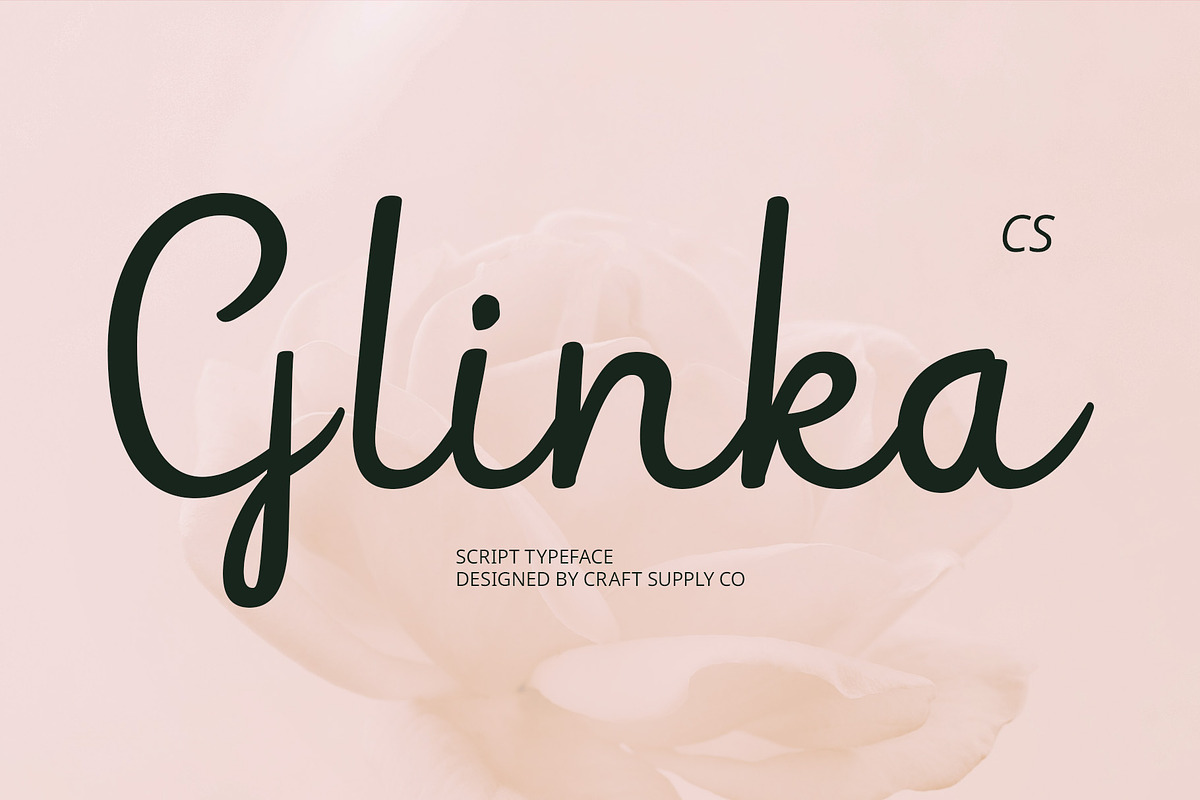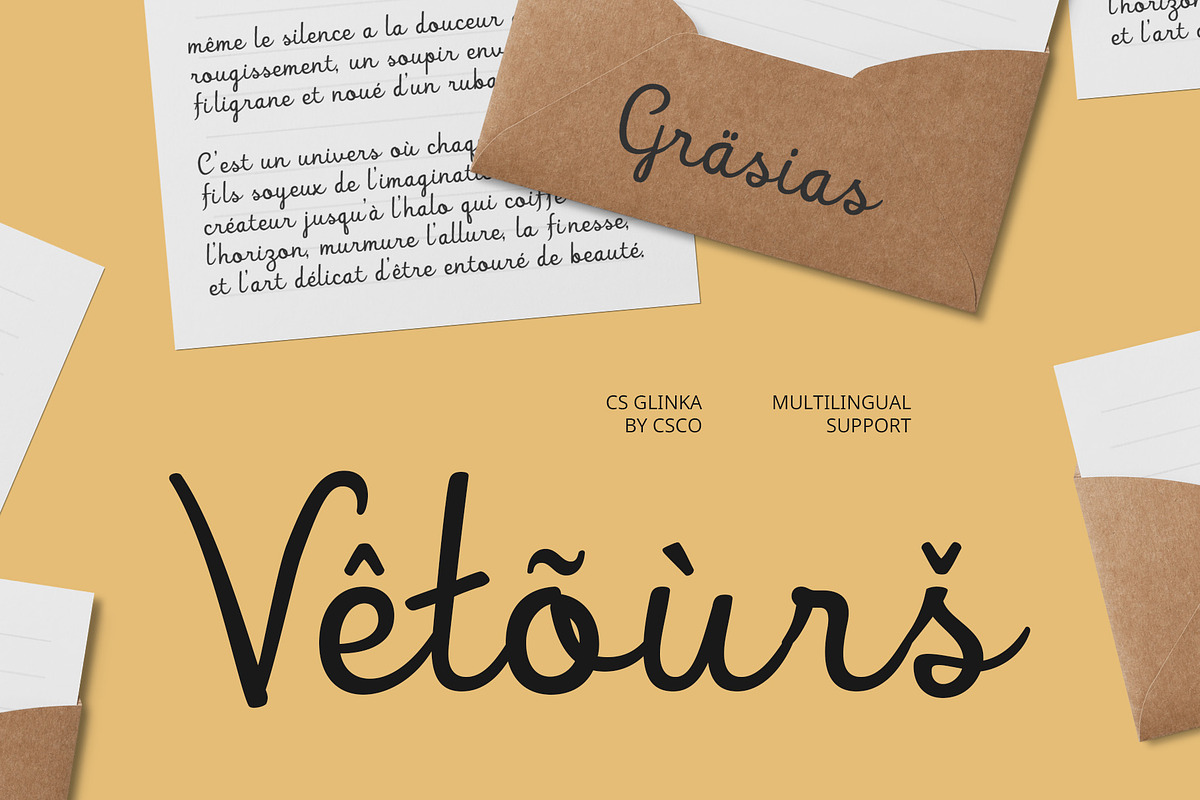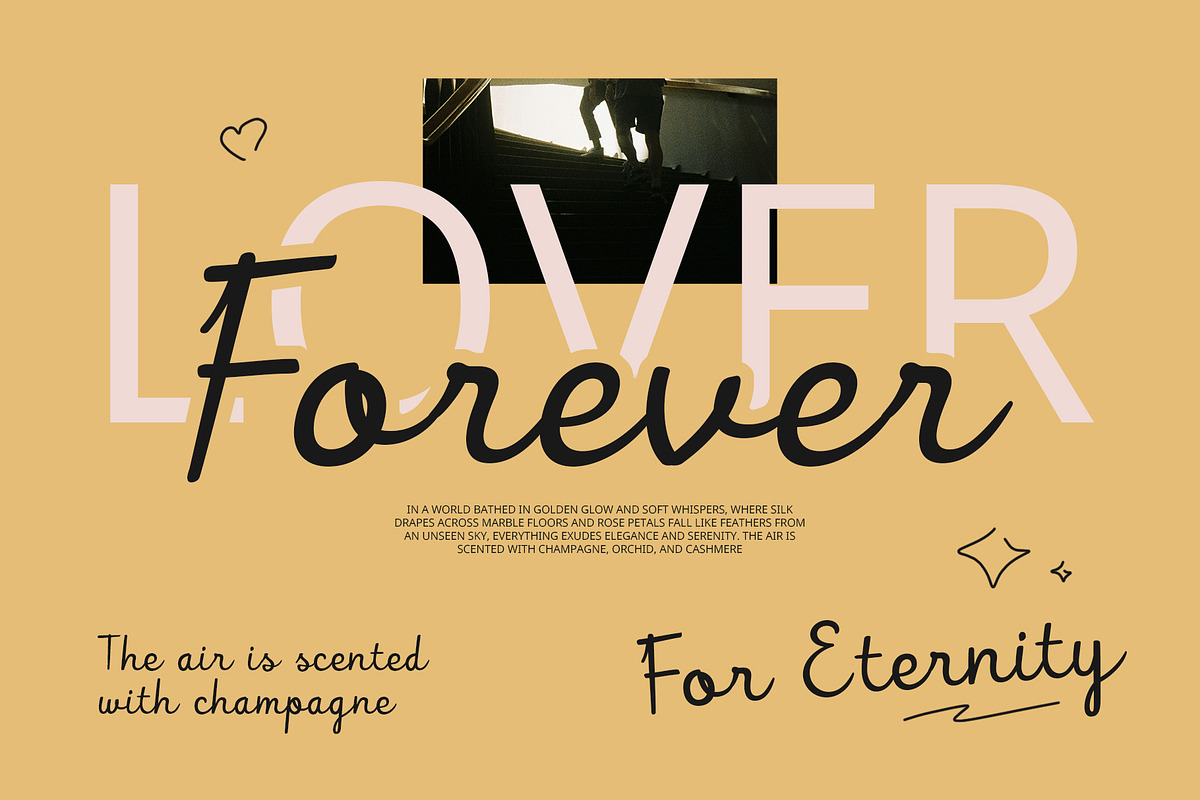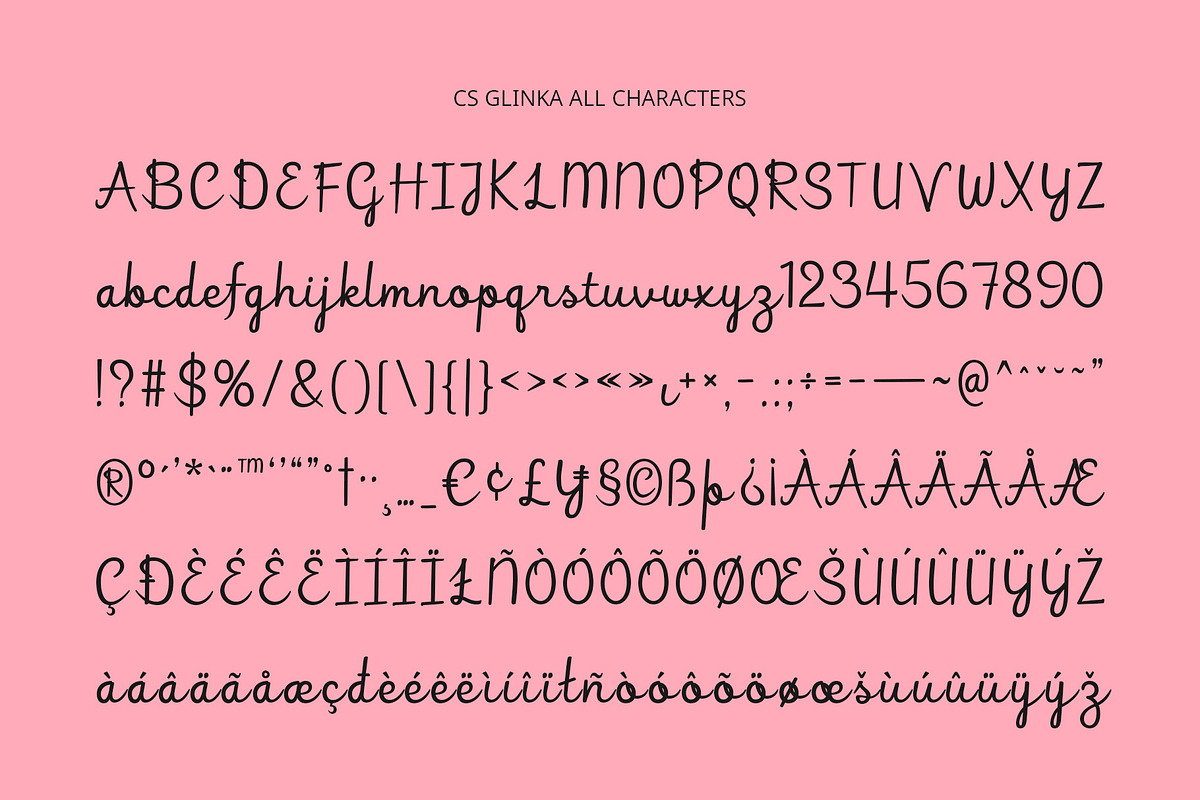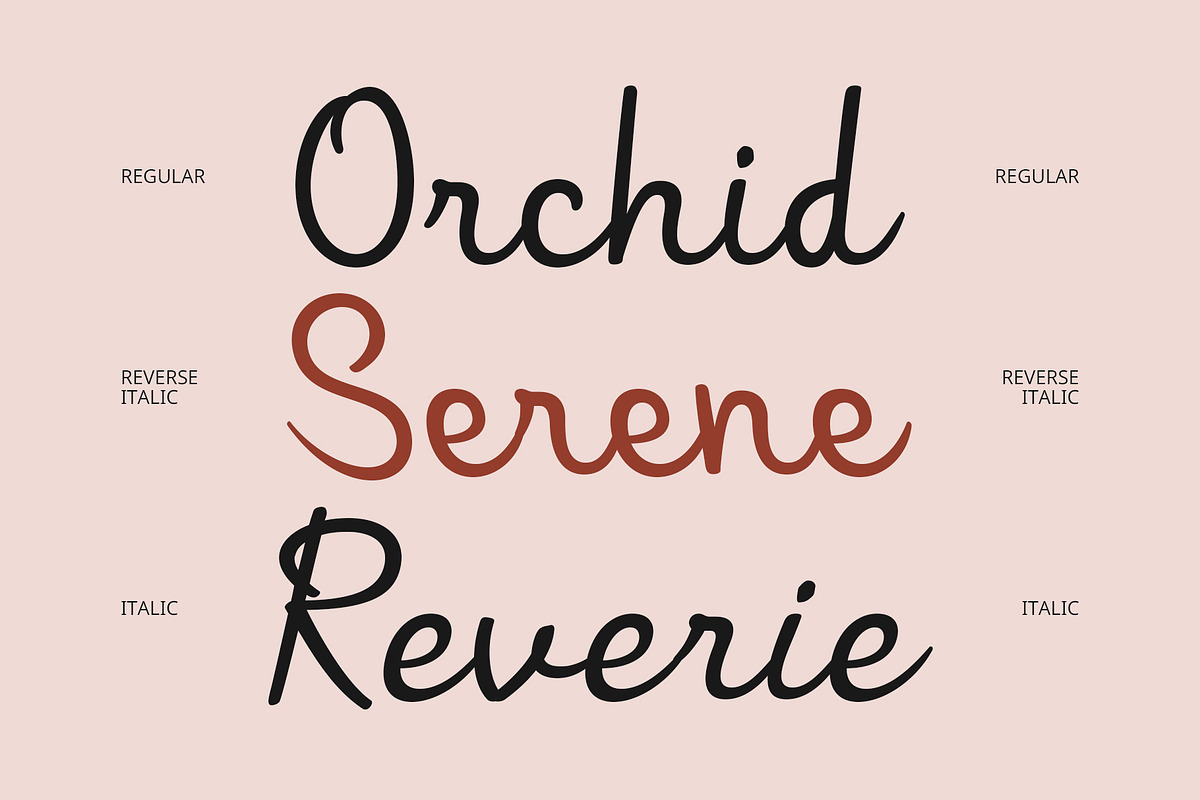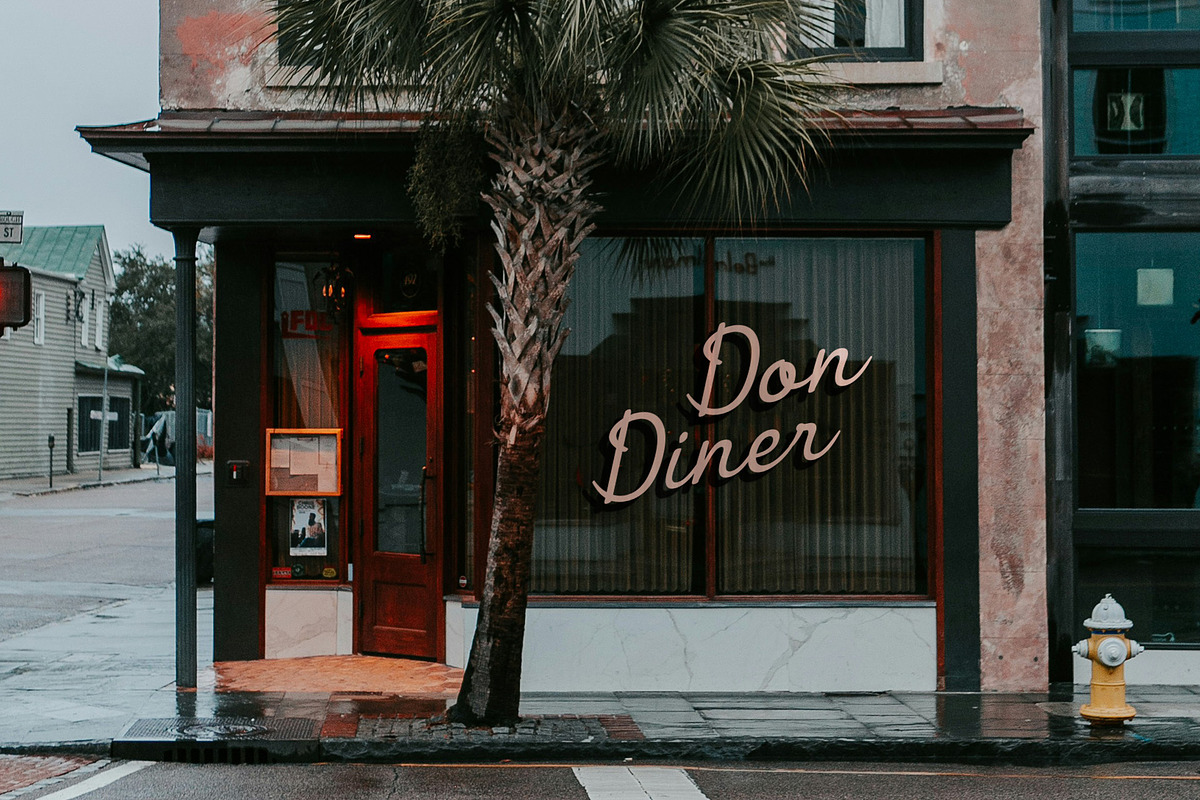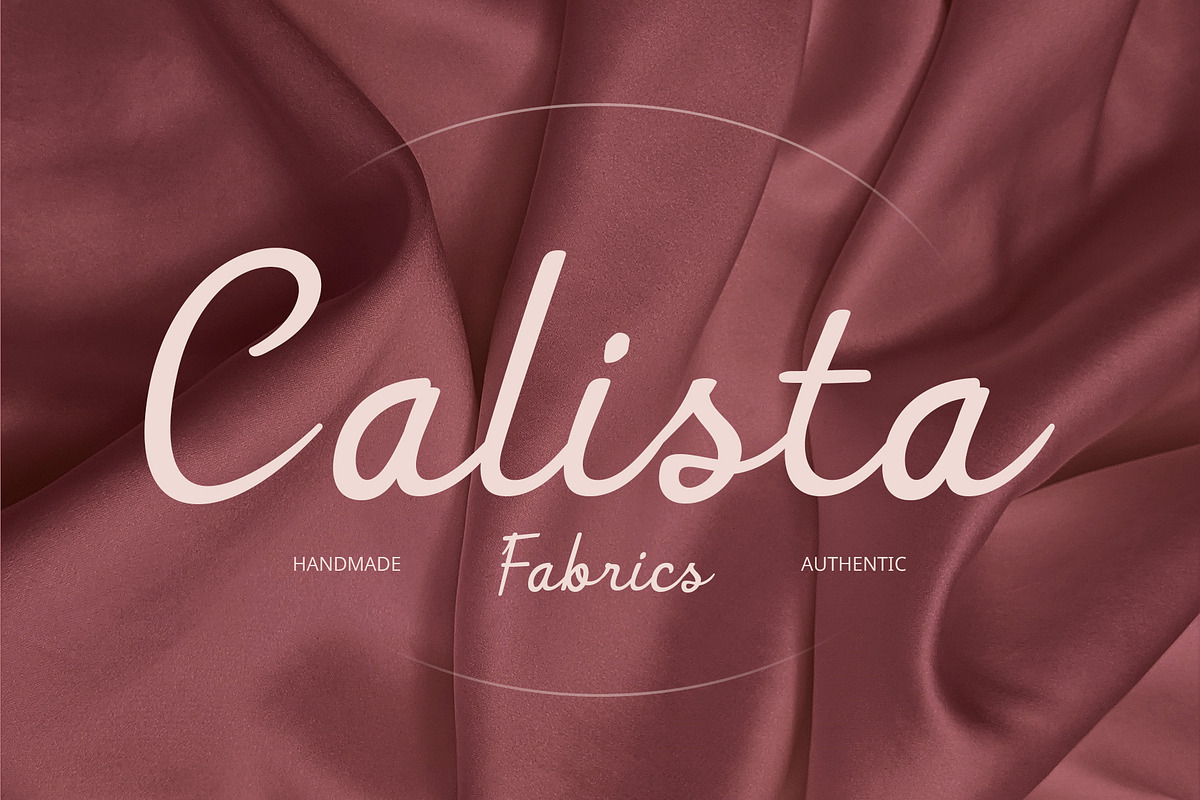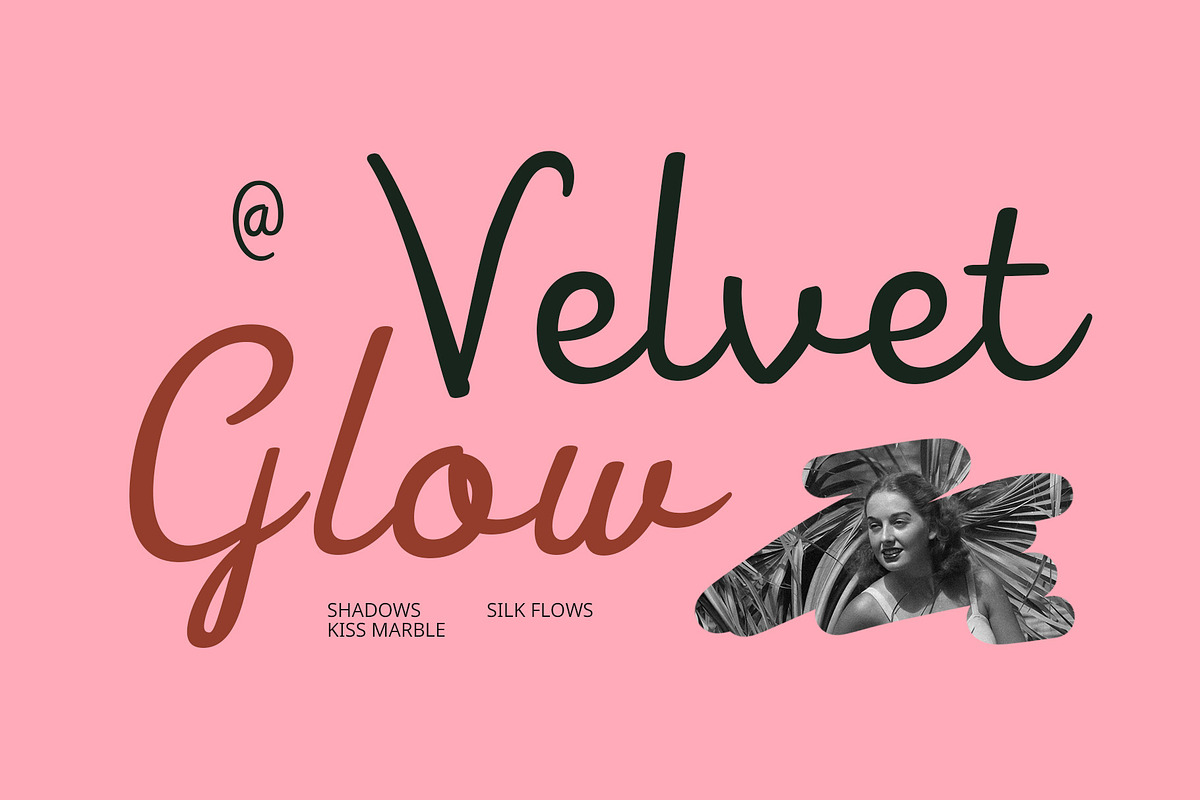
CS Glinka – Script Font
CS Glinka – A Refined and Graceful Script Font
Modern Elegance with a Feminine Touch CS Glinka is a modern script font that embraces a clean, minimalist, and contemporary feminine aesthetic. Each letter is formed with soft curves and smooth cursive strokes, creating a look that is both elegant and effortlessly stylish. Its well-structured flow gives the font a sense of refinement and grace, perfect for conveying a polished, high-end impression.
Soft, Sophisticated, and Captivating With its delicate yet confident presence, CS Glinka captures the essence of modern femininity—charming, precise, and visually appealing. The consistent rhythm and balanced proportions make it ideal for designs that demand both clarity and emotional depth. Use it to bring a touch of luxury and emotional warmth to your visuals.
Perfect for Beauty and Lifestyle Design Whether you’re crafting beauty product packaging, fashion branding, social media graphics, or luxury invitations, CS Glinka provides a script style that is both professional and expressive. It enhances any design with a refined softness that speaks to elegance and sophistication.
A Script Font that Elevates with Simplicity Designed for creatives who appreciate subtle elegance and clean aesthetics, CS Glinka is a perfect choice for projects that aim to appear graceful, stylish, and modern—without compromising personality or professionalism.
- CS Glinka Regular
- CS Glinka Italic
- CS Glinka Reverse Italic